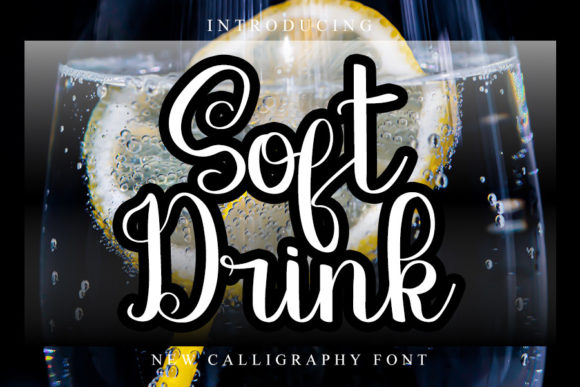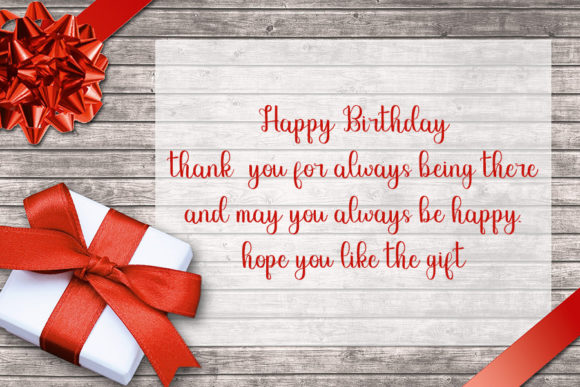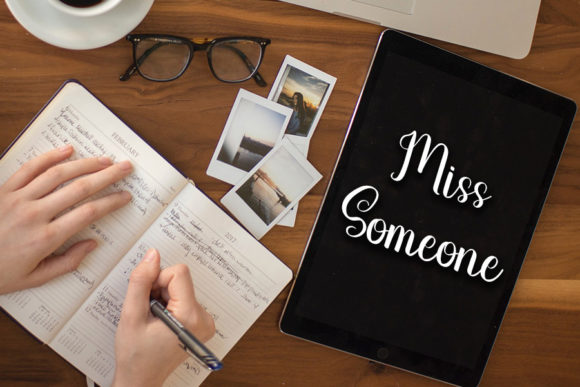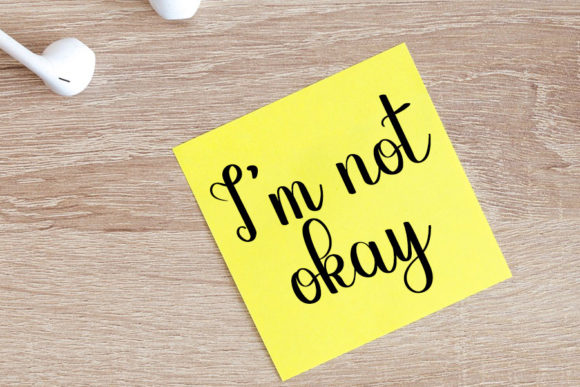
Soft Drink Font
About Soft Drink Font
Soft Drink is a chic handwritten font with an impeccable form, inspired by a timeless calligraphy. Balanced and varied, this font was designed to enhance the beauty of your projects.